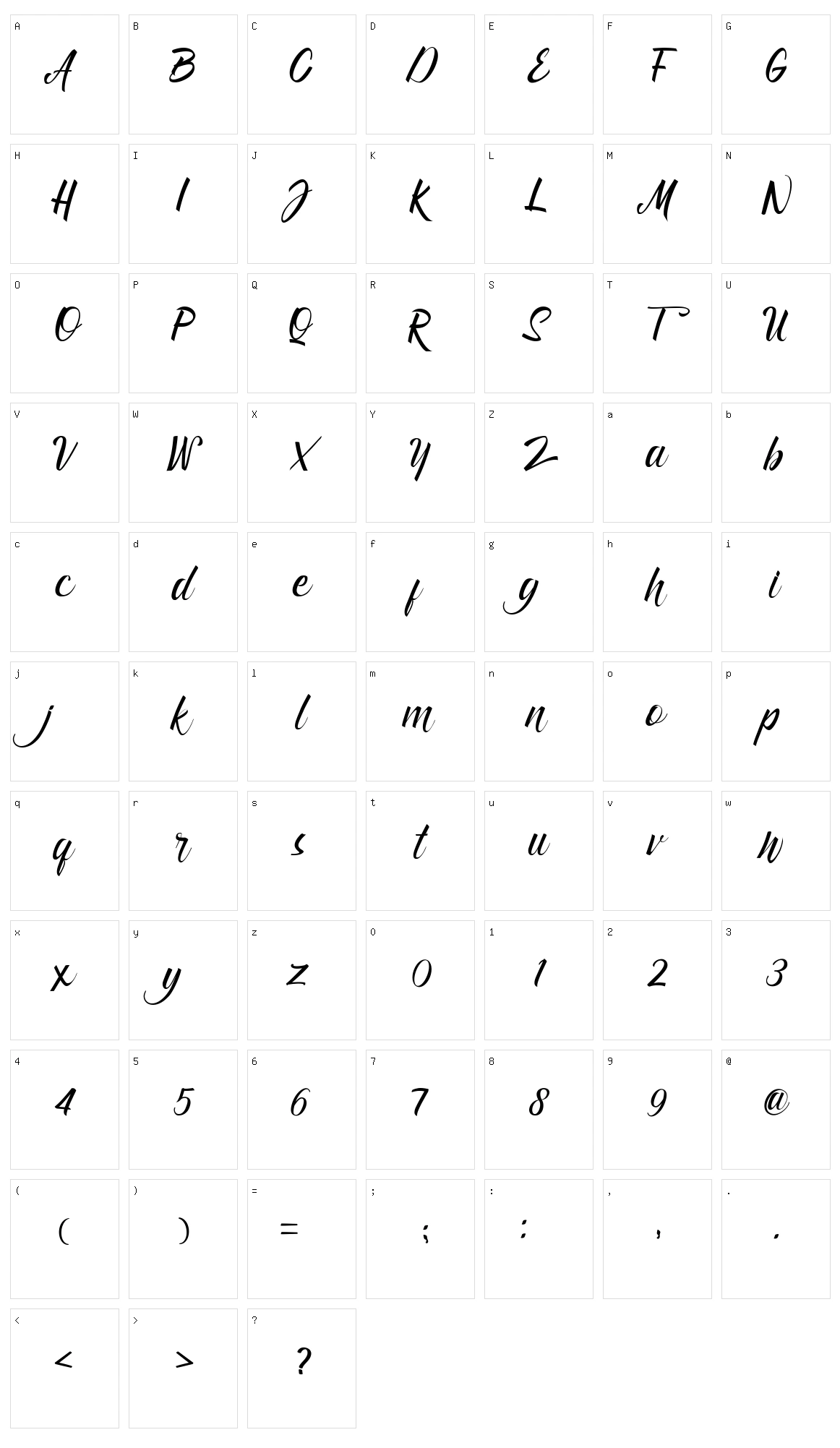
The free font Manoe is carefully designed by Aglap, showcasing a thoughtful balance of creativity and usability and falls under the Script font style. When you download the ZIP file, it contains only 17.26 KB of font files, making it lightweight and quick to download. Please review the license details below to understand permitted usage and distribution rights. If license information is not available, we recommend using this font for personal projects only or contacting the author directly for commercial usage permissions.